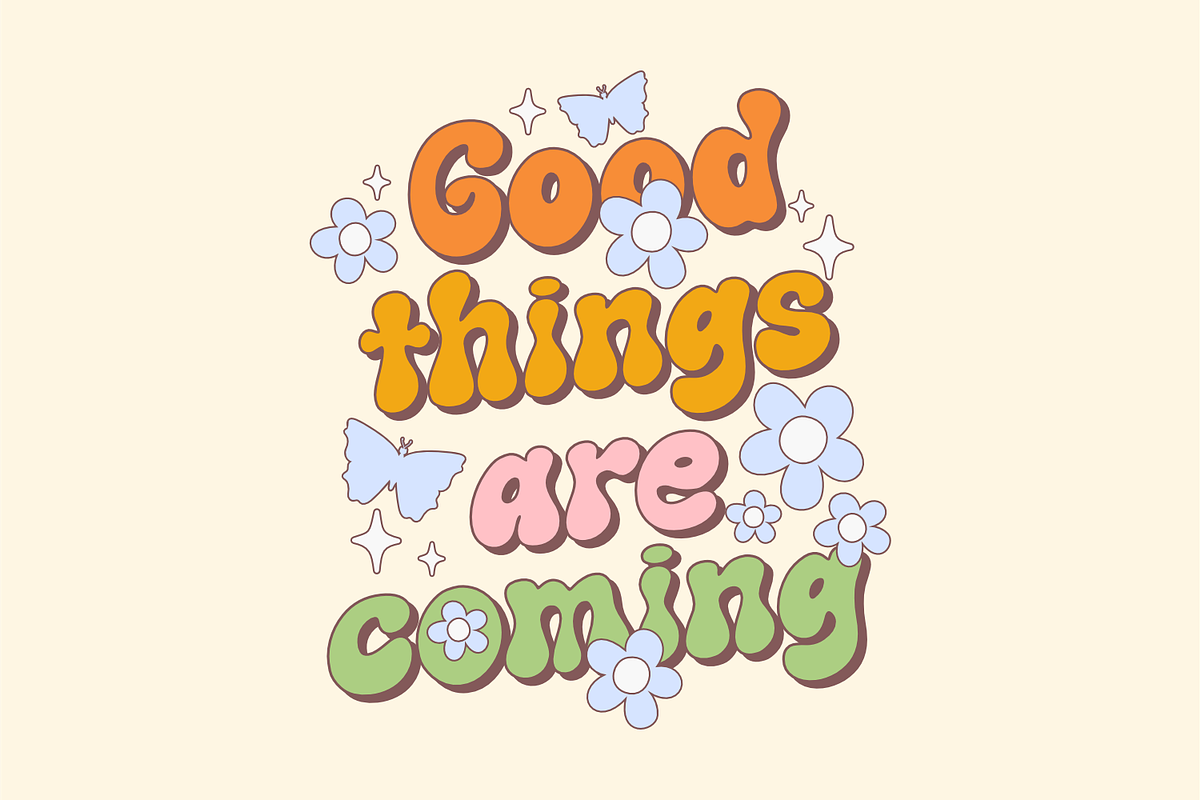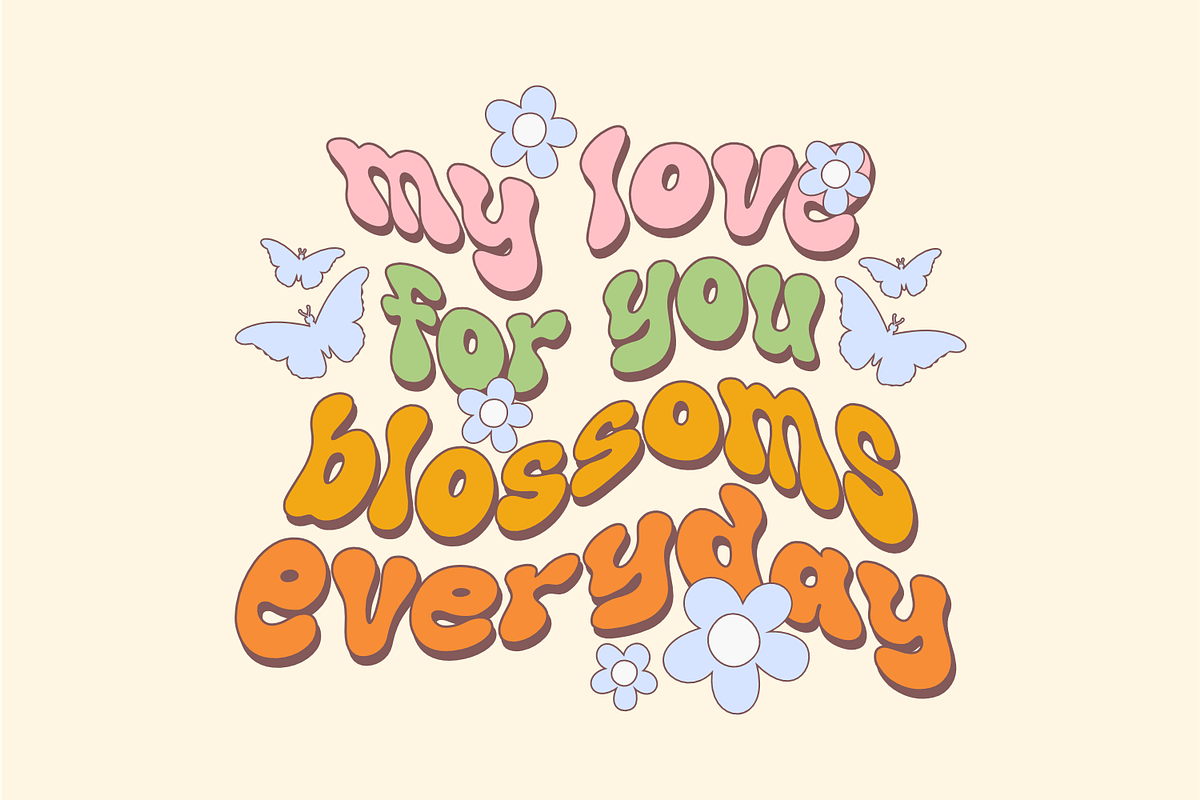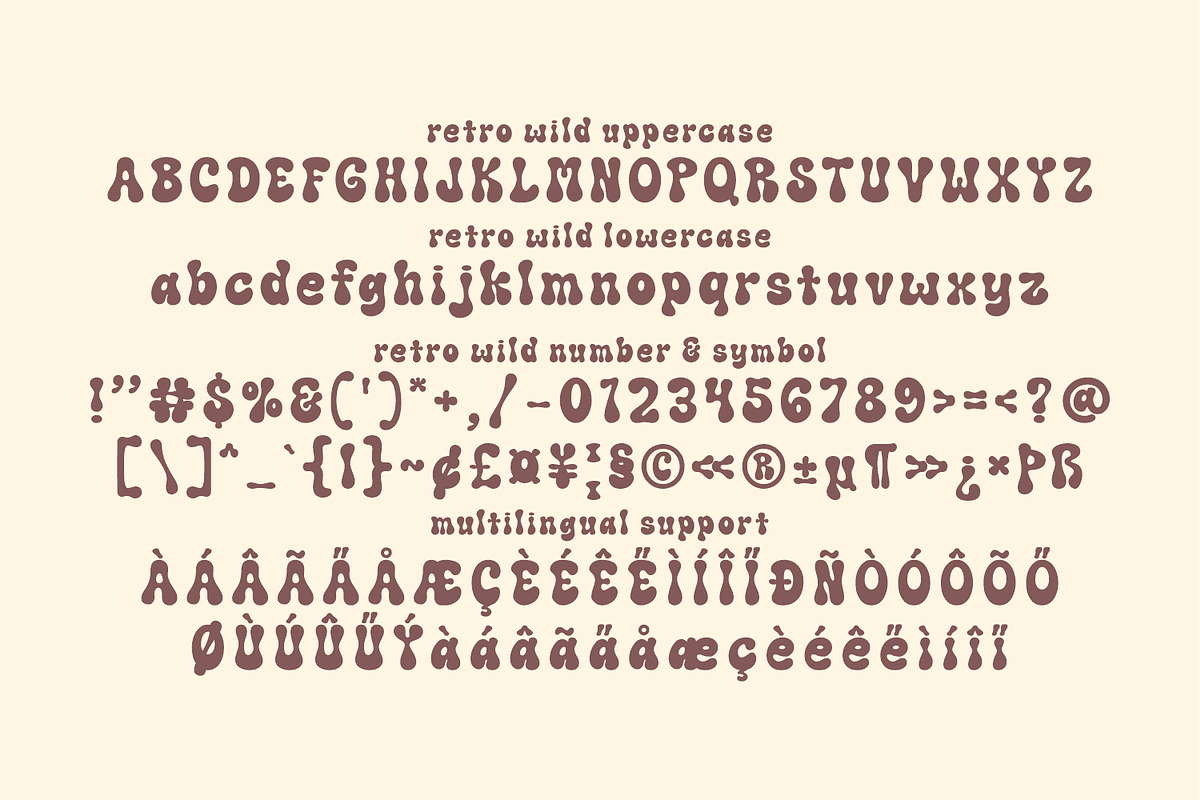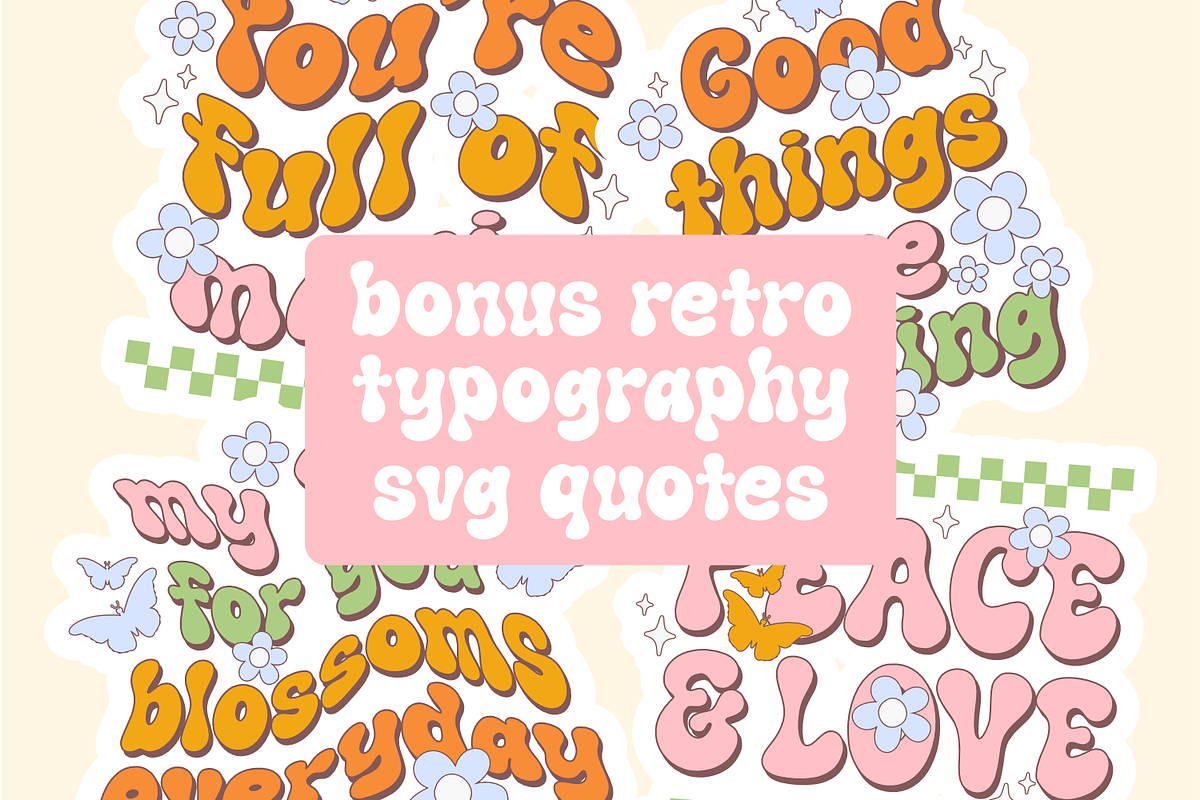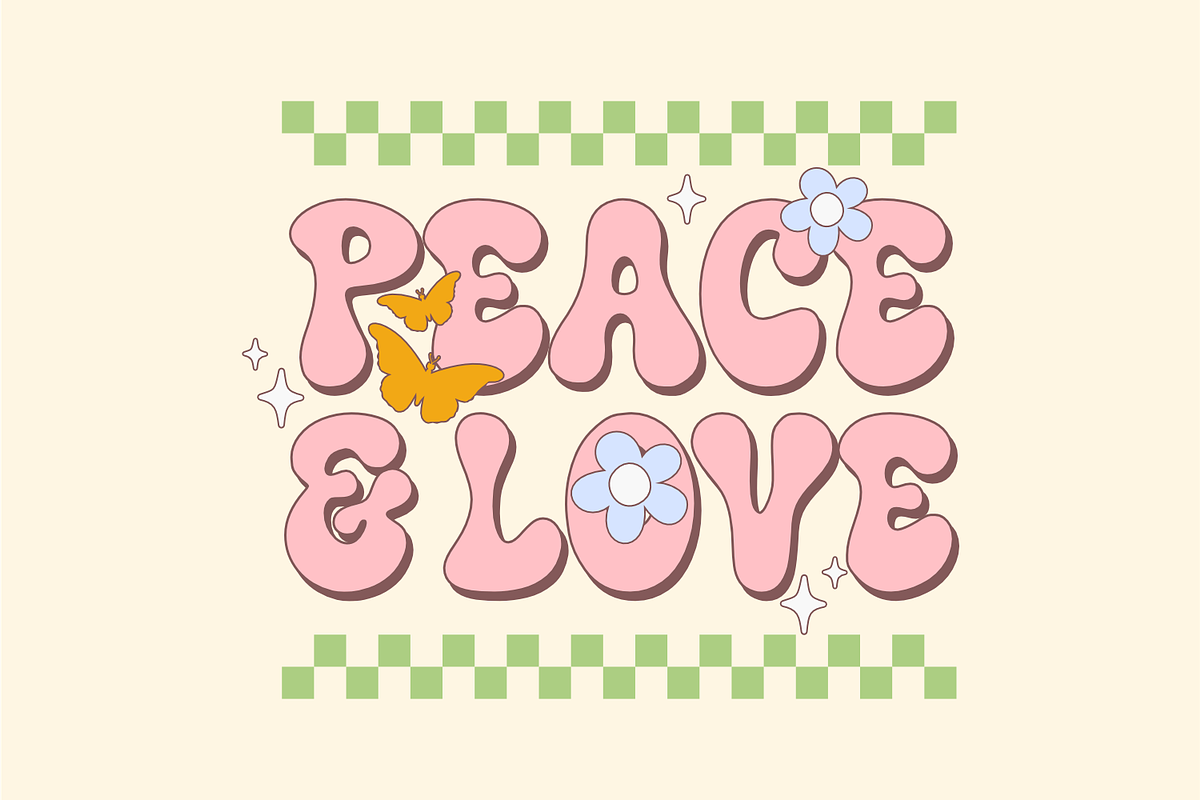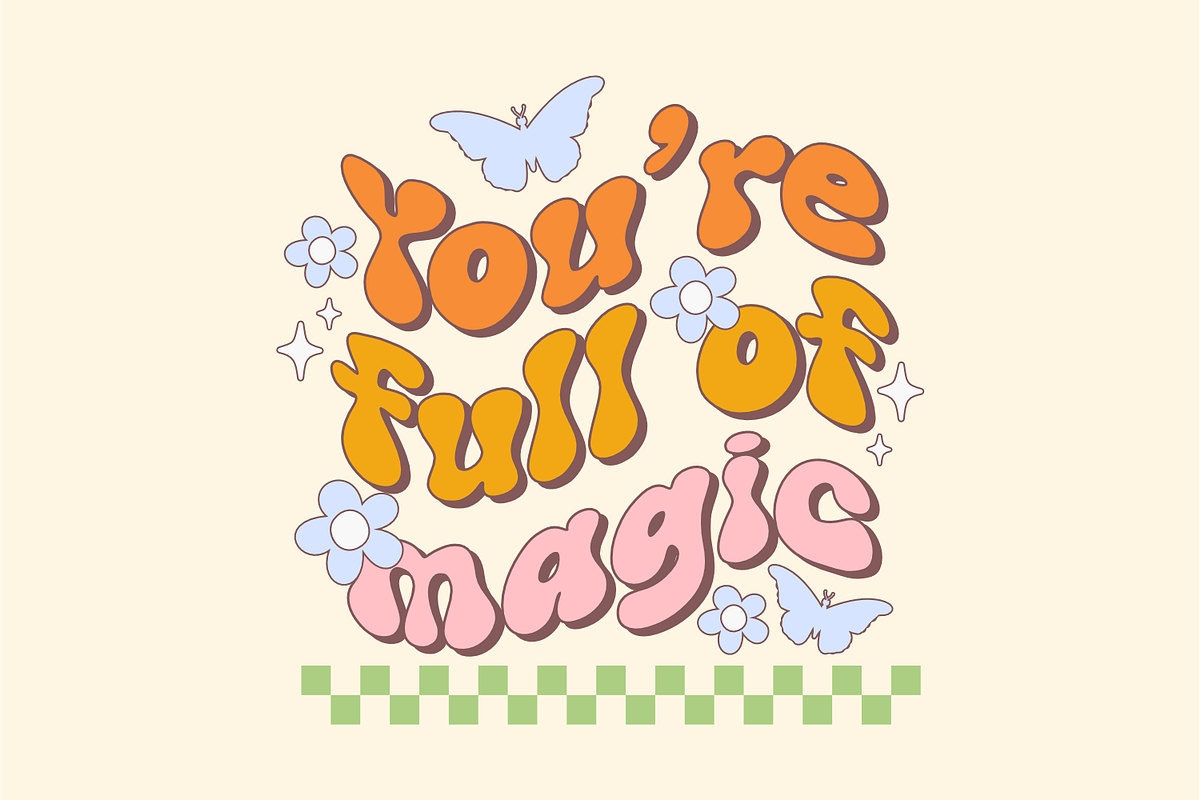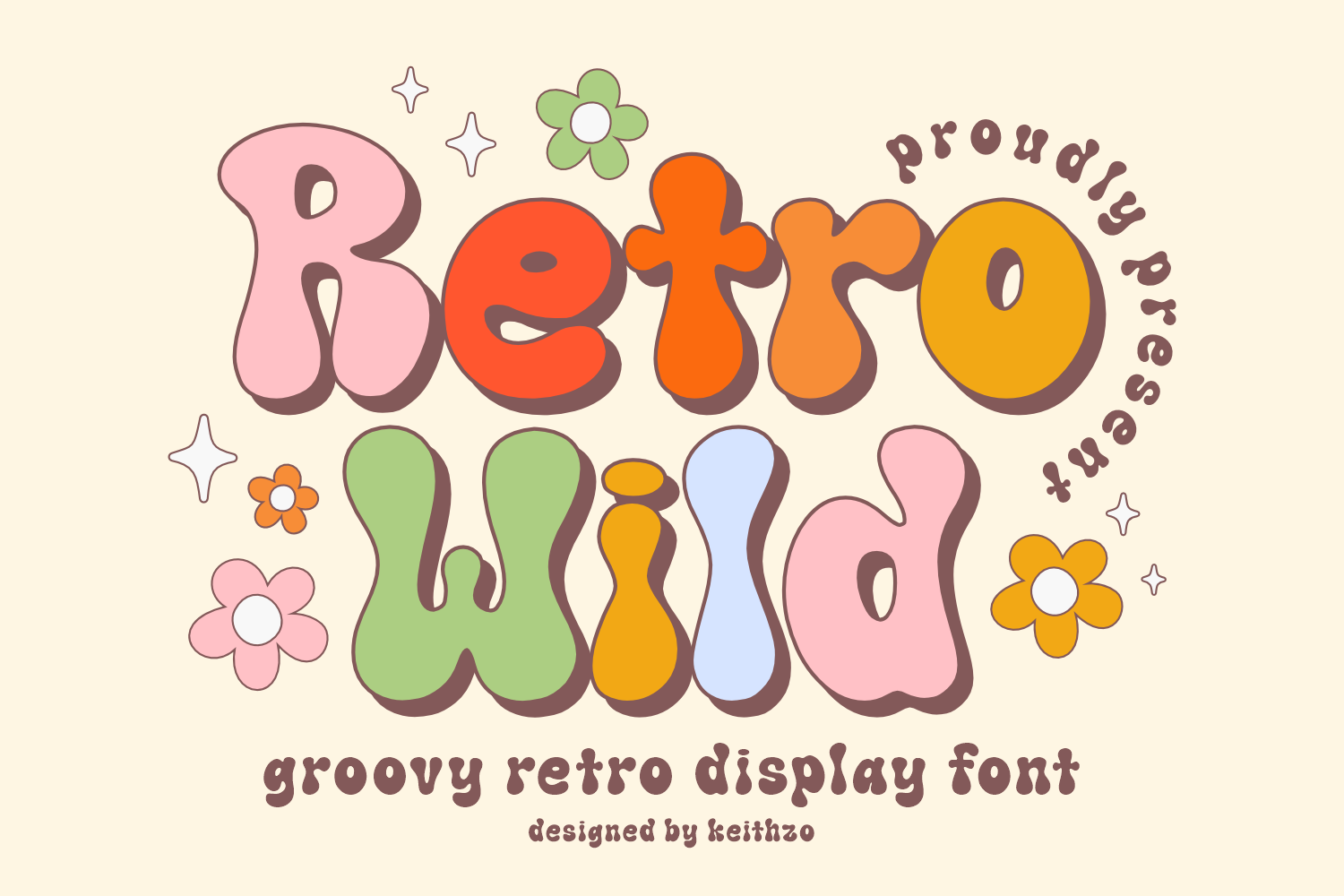
Retro Wild - Groovy Font
Imbue your creative endeavors with a playful energy and free-spirited charm with Retro Wild, a distinct display font rooted in retro aesthetics. Ensconced within its charismatic letterforms lies the spirit of the vibrant ‘flower power’ era and traces of the revolutionary psychedelic movement. Revealing a perfect blend of thick and thin strokes in its design, Retro Wild’s irregularities evoke an organic, handcrafted touch that imparts an appealing authenticity. Reach for Retro Wild when you want to infuse your designs with a carefree and dynamic appeal that captures the imagination.